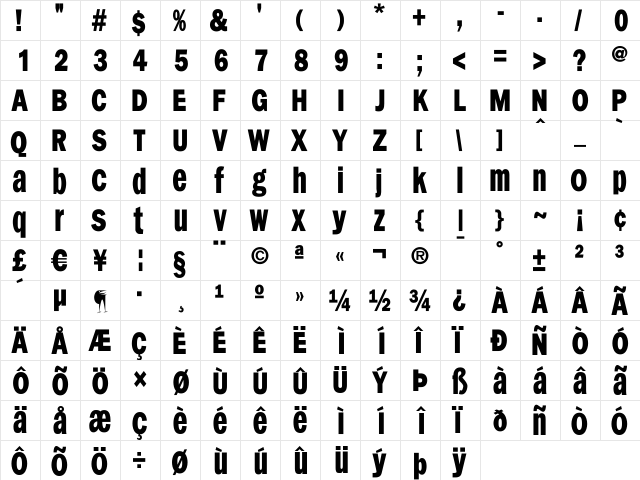
FranklySpokenTwo Regular
Design Context for FranklySpokenTwo Typeface
FranklySpokenTwo is a composed and adaptable typeface that performs quietly and consistently across a wide range of design contexts.
Pro Tip: Use FranklySpokenTwo in both headline and body roles to test its range before committing to a single application.